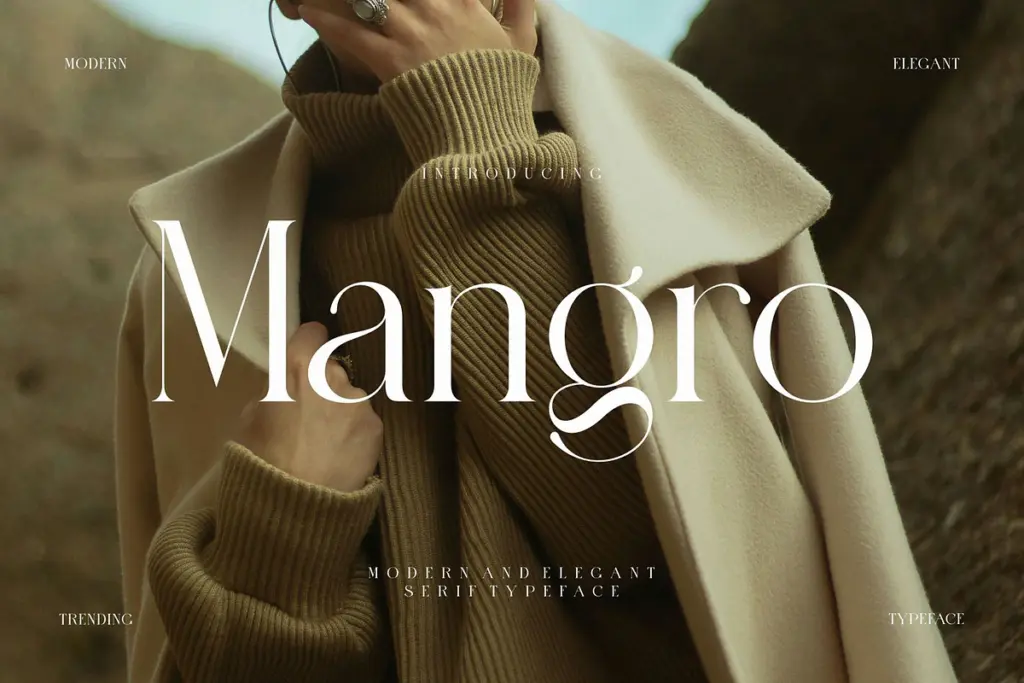
Discover Mangro: An Elegant Serif Typeface for Modern Design
Introducing Mangro, a modern and elegant ligature serif typeface that draws inspiration from the famous minimalist logo design. Perfect for a wide range of design purposes, Mangro is an ideal choice for creating templates, brochures, videos, advertising branding, logos, invitations, layout designs, elegant crafting, beauty designs, and more.
Key Features of Mangro
Mangro is designed to provide designers with a sophisticated and versatile typeface. Here are some of its standout features:
Modern and Elegant Design: Mangro’s minimalist and stylish design makes it perfect for creating elegant and contemporary projects.
Ligature Serif Typeface: The use of ligatures enhances the overall aesthetics, providing smooth and elegant connections between characters.
Versatile Usage: Ideal for various design applications, including templates, brochures, videos, advertising, branding, logos, invitations, layout design, elegant crafting, and beauty design.
Multilingual Support: Mangro includes multilingual support, making it accessible for a global audience.
Enhance Your Designs with Mangro
Mangro is crafted to bring a touch of elegance and sophistication to your design projects. Whether you’re working on branding, advertising, or crafting elegant invitations, this typeface provides the perfect balance of modern and minimalist aesthetics.